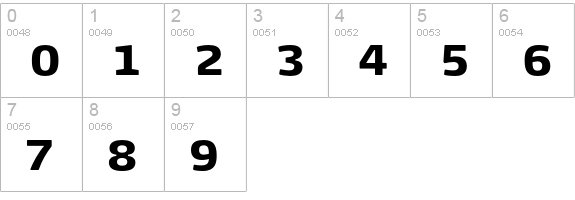
MaxTF-BlackSC is a bold and striking font that exudes elegance and modernity. With its sleek and sophisticated design, this font is perfect for making a bold statement in your designs. The sharp edges and bold strokes give MaxTF-BlackSC a powerful presence that commands attention. What's even better is that MaxTF-BlackSC is available for free download at FontsMarket.com. This means you can easily incorporate this stunning font into your projects without any cost. Whether you're working on branding, advertising, posters, or any other design project, MaxTF-BlackSC is sure to elevate your work to the next level. Don't miss out on the opportunity to enhance your designs with the striking MaxTF-BlackSC font. Download it for free today and see the difference it can make in your creations.